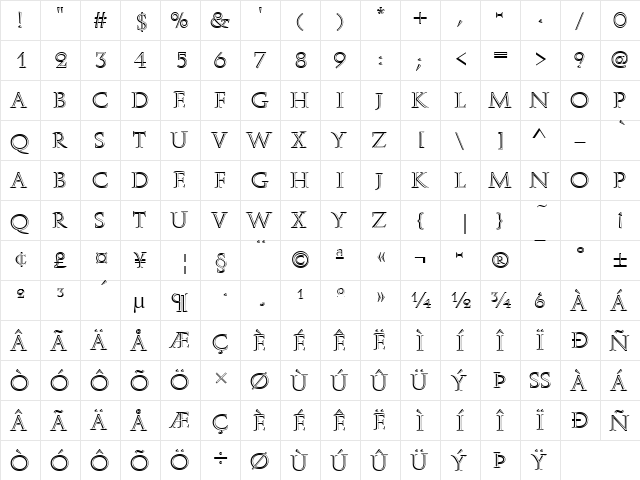
URWAlmagestOpeD Regular
Design Context for URWAlmagestOpeD Typeface
URWAlmagestOpeD takes a measured approach to typography — its balanced proportions and neutral character make it a reliable workhorse for both digital and print work.